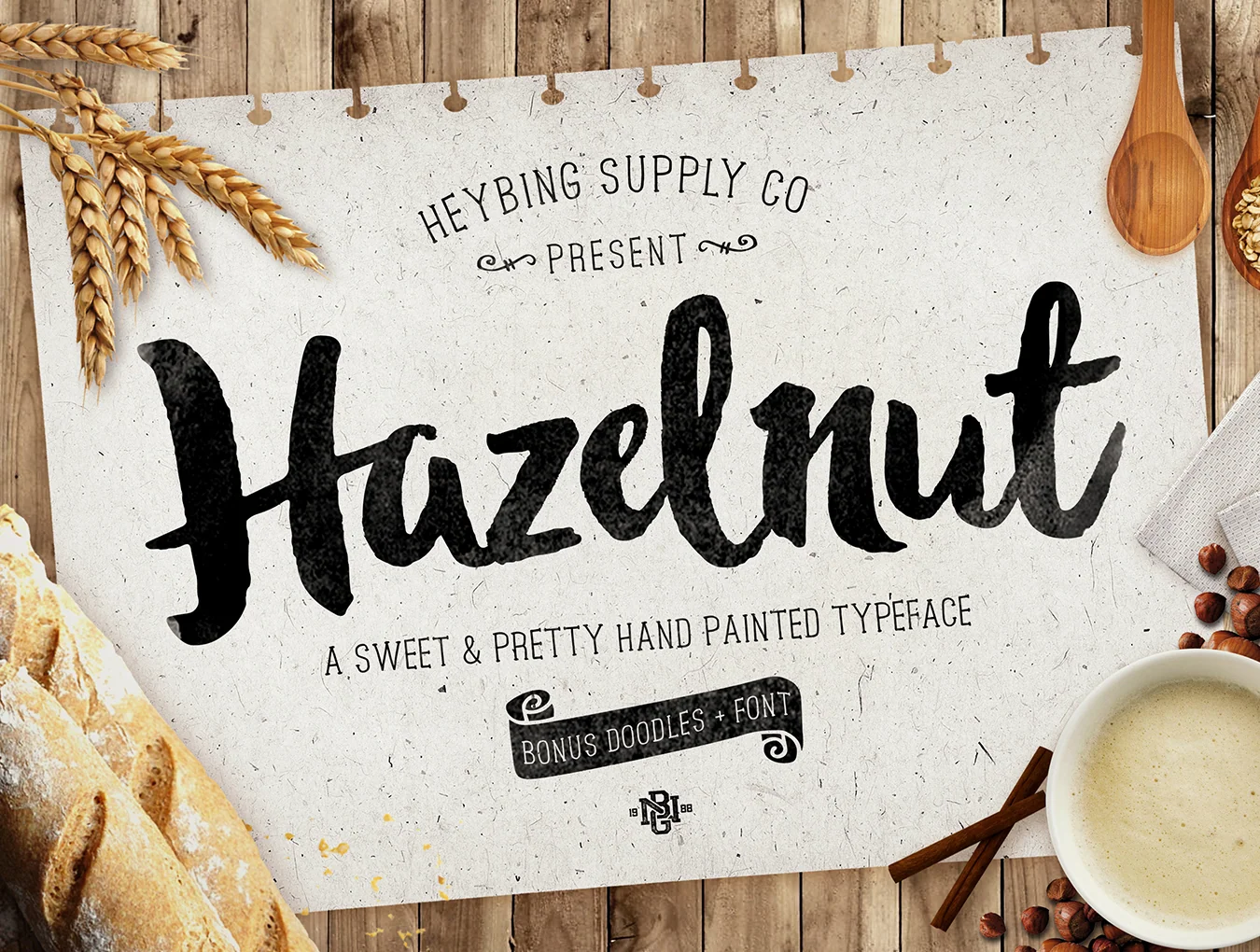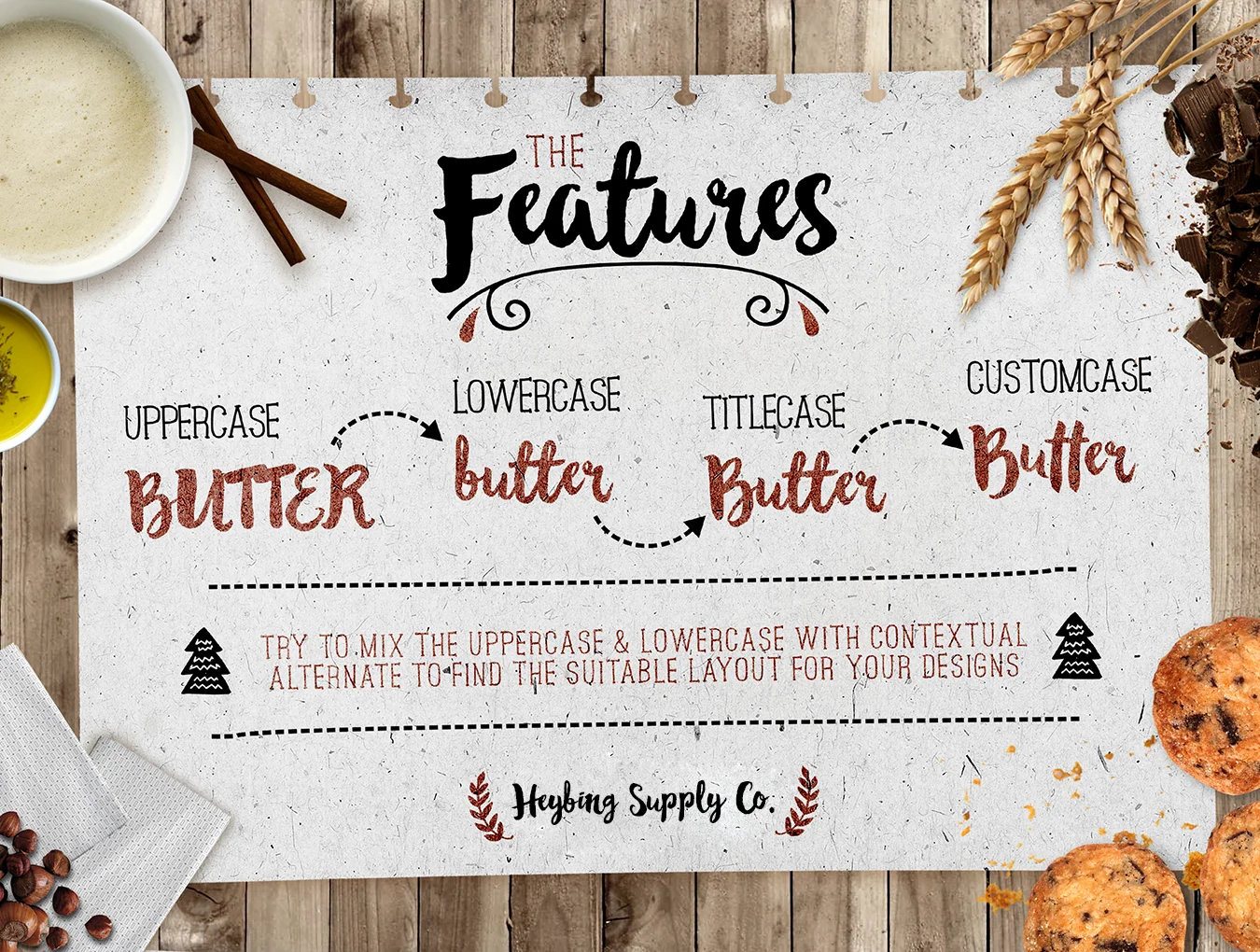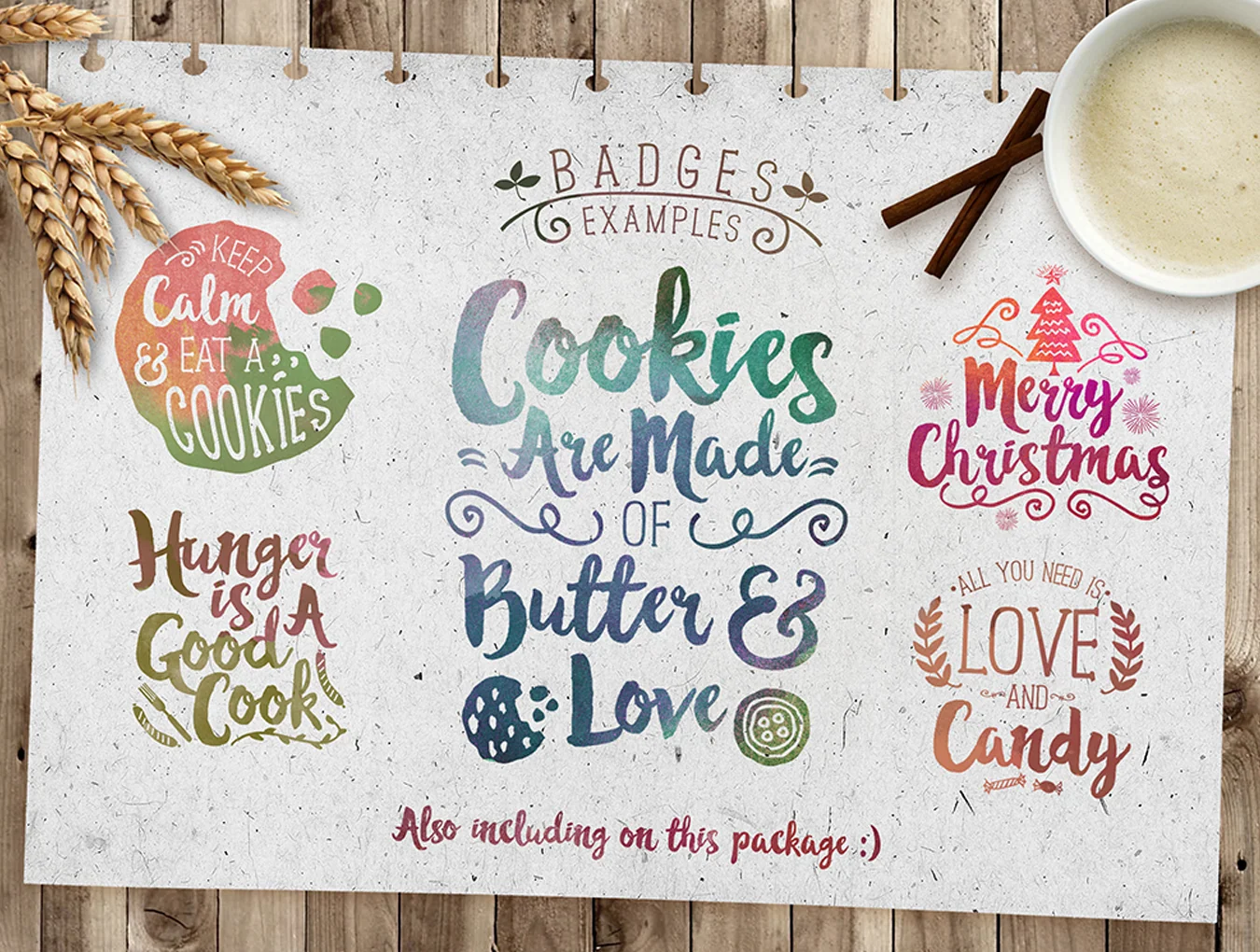
Hazelnut
Hand-painted font with two uses
Hazelnut Typeface by Heybing Supply Co is a versatile font designed with hand-painted letters and an uneven baseline. Freshly brush-lettered, it has a relaxed, artistic, ink-rich feel, plus plenty of free extras to help your designs stand out.